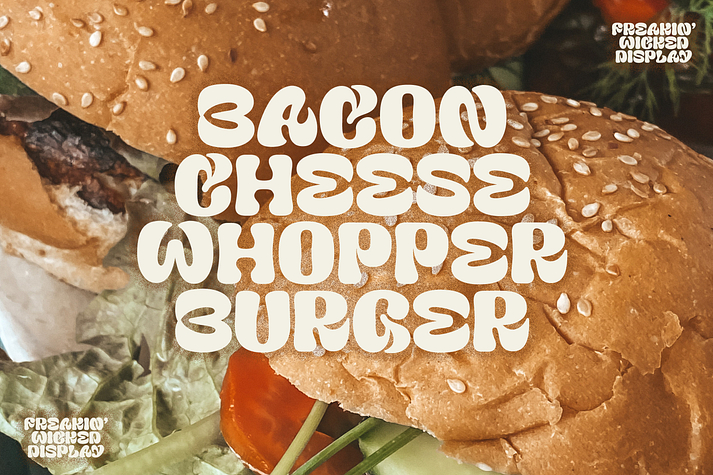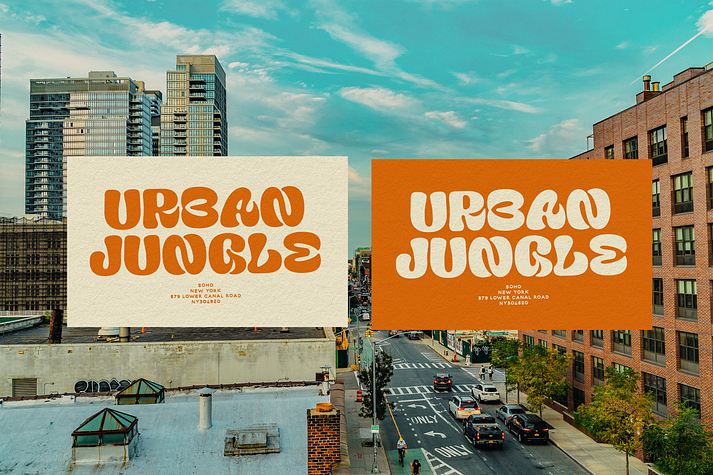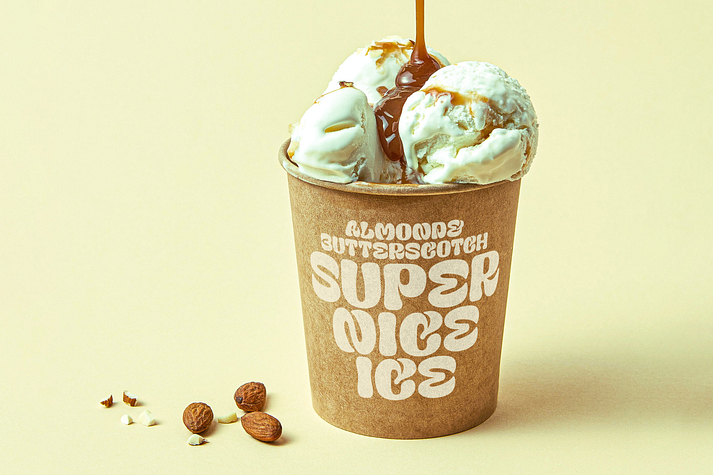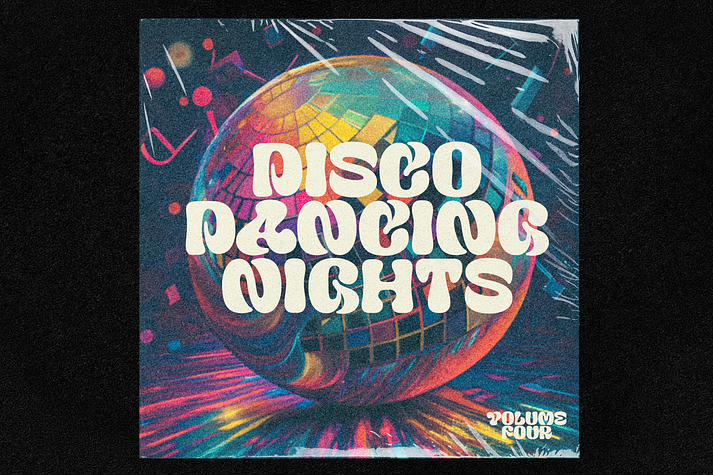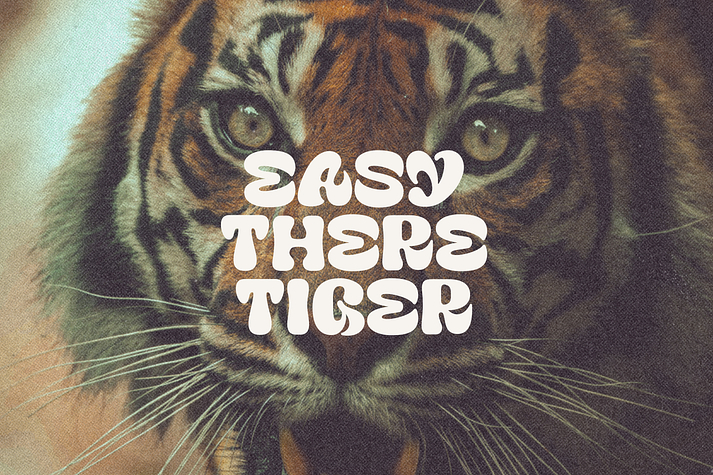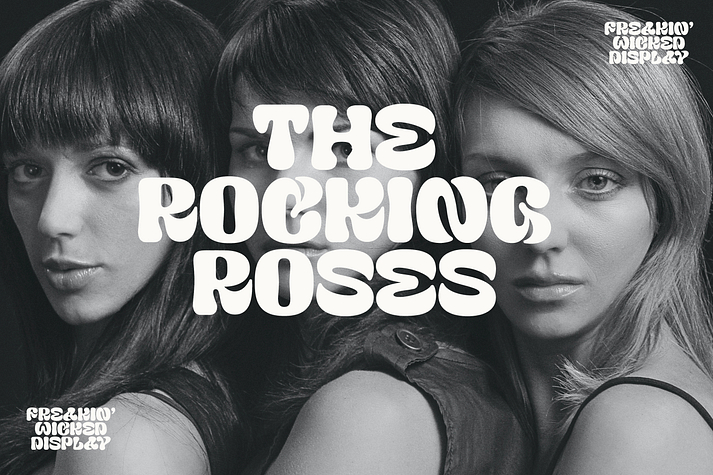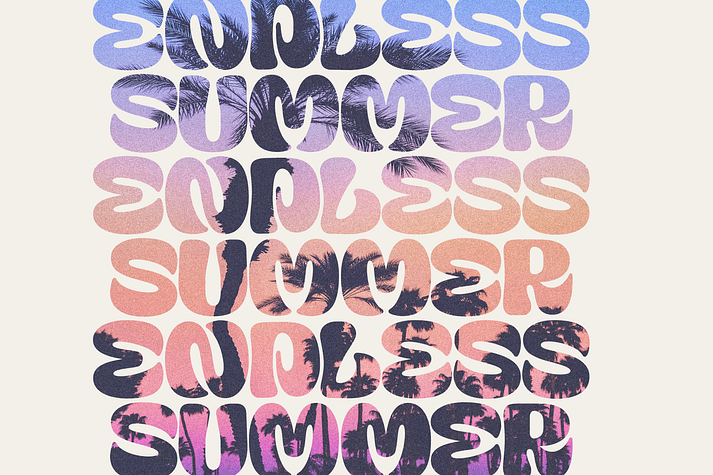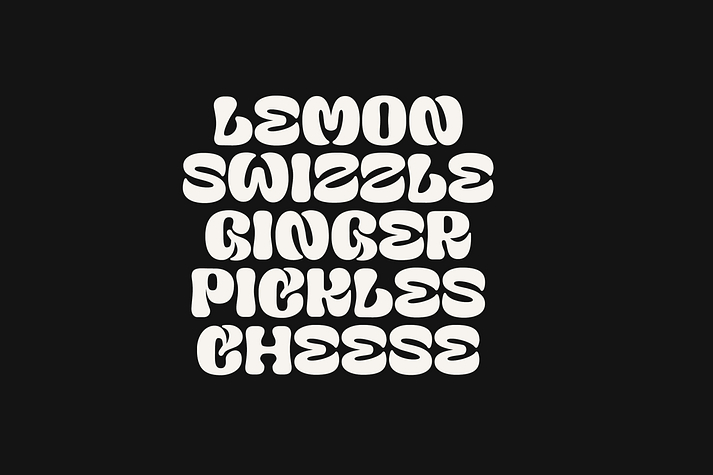
Freakin Wicked
Freakin Wicked is a font family published by Nicky Laatz.
It’s phat, it’s happy, it’s weird, it’s wonderful. Say hello to Freakin Wicked Display font! A retro groovy display font,  but with a cheeky touch of the future. Great for any project that needs something a little loud and lot avant garde:)